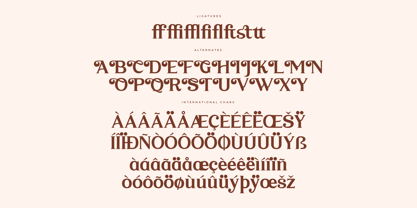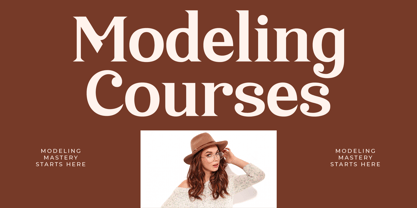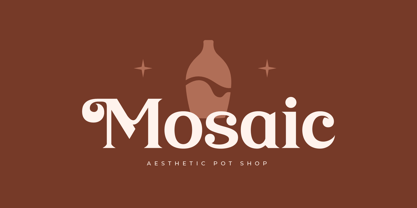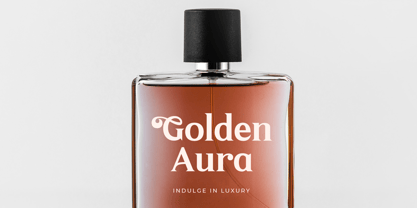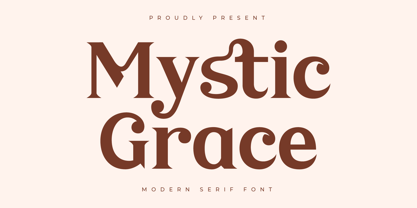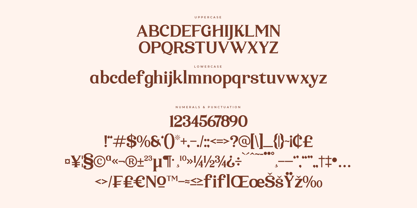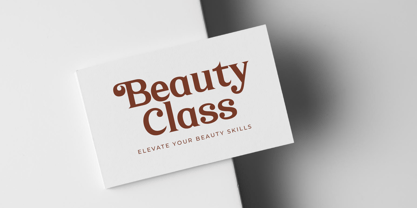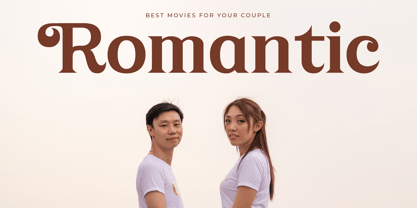
Mystic Grace
by Letterena Studios
The Mystic Grace Font Family was designed by Heru Utama Putra and published by Letterena Studios. Mystic Grace contains 2 styles and family package options. More about this family
Mystic Grace is a luxurious serif font that captivates with its regal charm and refined aesthetics. Crafted for grandeur, its stately serifs and intricate details exude sophistication. Elevate your designs with the timeless elegance of Mystic Grace, a font that commands attention and exudes opulent style.